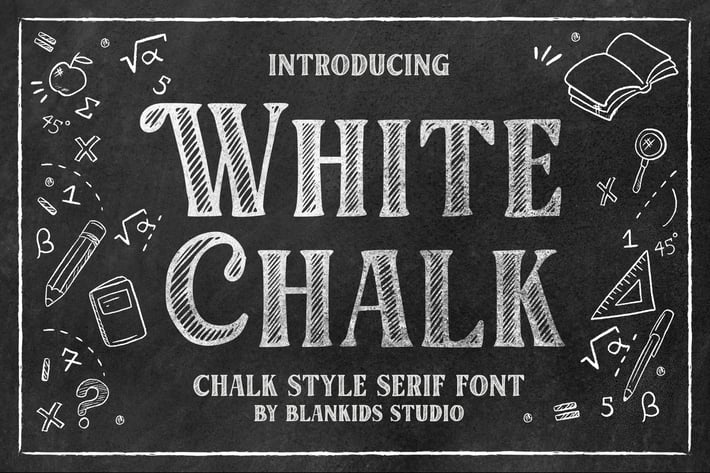
White Chalk Serif Font
Introducing of our new product the name is White Chalk Serif Font font. White Chalk inspired by Chalk Style Lettering this font is a fun theme very good for display, tshirt design, craft, quote sign, logotype and etc